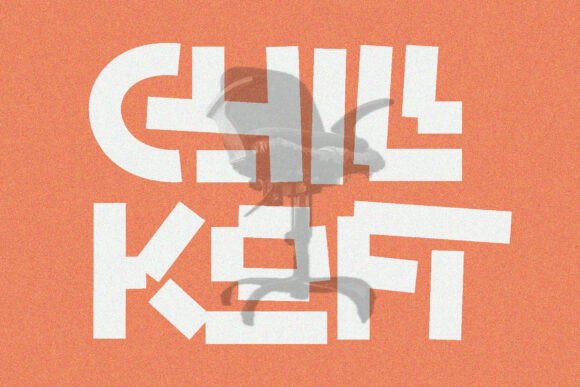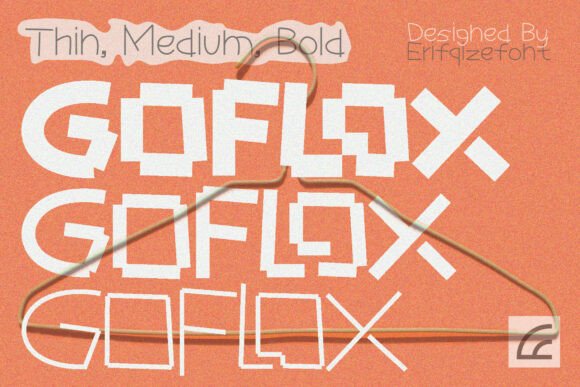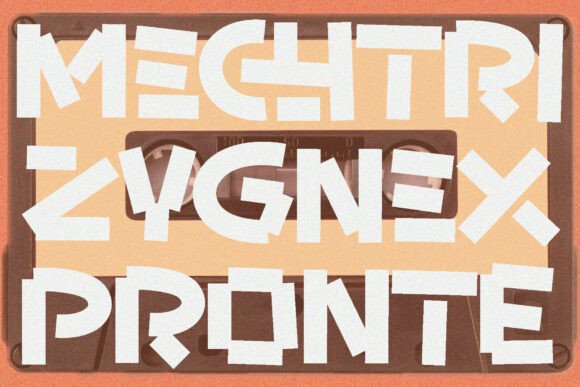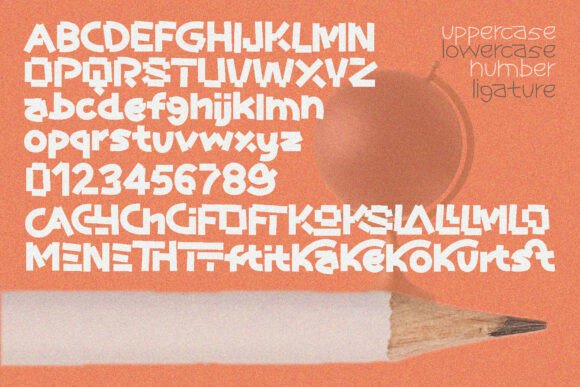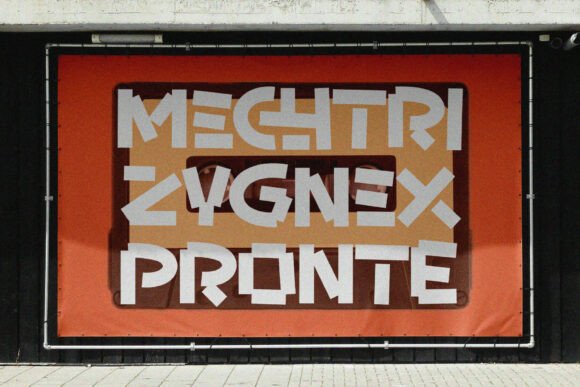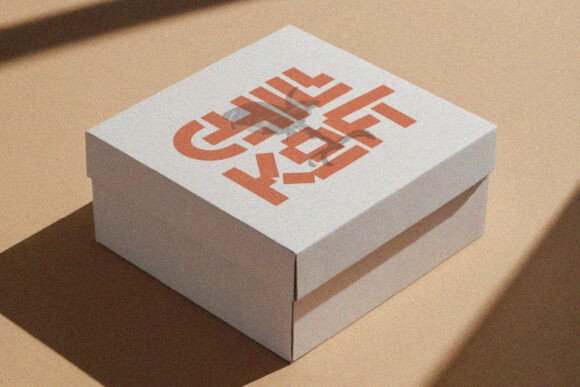
Introducing Chillkoft Font: The Ultimate Bold and Playful Display Typeface
In the world of typography, fonts play a crucial role in conveying messages, expressing emotions, and creating visual identities. For designers and crafters, finding the right font can make all the difference in bringing their creative projects to life. If you’re on the hunt for a bold and playful display typeface that exudes retro charm and geometric sophistication, look no further than Chillkoft Font.
What is Chillkoft Font?
Chillkoft Font is a bold and playful display typeface that draws inspiration from retro aesthetics and geometric shapes. Its unique design combines the best of both worlds, resulting in a font that is both nostalgic and modern. With its bold lines, geometric curves, and playful flair, Chillkoft Font is the perfect choice for creative projects that require a distinctive and eye-catching display font.
Key Features of Chillkoft Font
- Bold and Playful Design: Chillkoft Font boasts a bold and playful design that is sure to grab attention. Its thick lines and geometric curves create a sense of energy and movement, making it perfect for headlines, titles, and short texts.
- Retro Aesthetic: Inspired by retro typography, Chillkoft Font features a distinctive nostalgic charm that is reminiscent of vintage posters, logos, and advertisements.
- Geometric Shapes: The font’s geometric shapes add a touch of modernity and sophistication, making it suitable for a wide range of creative projects, from logos and branding to packaging and social media graphics.
- Versatile and Adaptable: Chillkoft Font is designed to be versatile and adaptable, making it perfect for various applications, including logos, posters, branding, packaging, headlines, advertising, and social media graphics.
Use Cases for Chillkoft Font
Chillkoft Font is an incredibly versatile font that can be used in a wide range of creative projects. Here are some use cases where Chillkoft Font truly shines:
- Logos and Branding: Create a bold and memorable logo that stands out from the crowd with Chillkoft Font.
- Posters and Flyers: Add a touch of retro charm to your posters and flyers with Chillkoft Font’s bold and playful design.
- Packaging Design: Make your product packaging stand out on store shelves with Chillkoft Font’s unique and eye-catching design.
- Headlines and Advertising: Create bold and attention-grabbing headlines for your advertisements, social media posts, and website content with Chillkoft Font.
- Social Media Graphics: Add a pop of personality to your social media graphics, including Instagram posts, Facebook headers, and Twitter graphics, with Chillkoft Font.
Why Choose Chillkoft Font?
With so many fonts available, why choose Chillkoft Font? Here are just a few reasons why designers and crafters love Chillkoft Font:
- Unique Design: Chillkoft Font features a unique and distinctive design that sets it apart from other fonts.
- Easy to Read: Despite its bold design, Chillkoft Font is easy to read, even at smaller sizes.
- Highly Versatile: Chillkoft Font can be used in a wide range of creative projects, from logos and branding to packaging and social media graphics.
- Retro Charm: Chillkoft Font’s retro aesthetic adds a touch of nostalgia and charm to any design.
| Font Name | Chillkoft Font |
| Author | erifqizefont |
In conclusion, Chillkoft Font is a bold and playful display typeface that is perfect for creative projects that require a distinctive and eye-catching font. With its retro aesthetic, geometric shapes, and versatile design, Chillkoft Font is sure to become a favorite among designers and crafters. Whether you’re creating logos, posters, packaging, or social media graphics, Chillkoft Font is the perfect choice for adding a touch of personality and style to your designs.